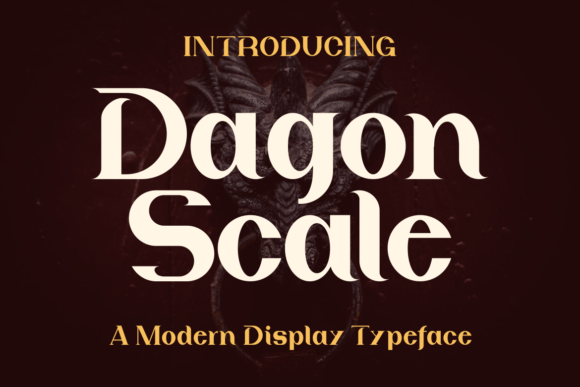
Prepare to be mesmerized by Dagon Scale – a display font that exudes boldness and electrifies your words! This captivating typeface is awash with vibrant colors and sharp angles, making it the perfect choice to demand attention and leave a lasting impression. Whether you're crafting eye-catching signage, designing unforgettable logos, or creating product packaging that pops, Dagon Scale's unique and contemporary style will elevate your project to new heights. Its modern design will add a touch of cutting-edge sophistication, ensuring that your creations stand out from the crowd. Unleash the power of Dagon Scale today and watch your words come alive with unparalleled vibrancy and impact!